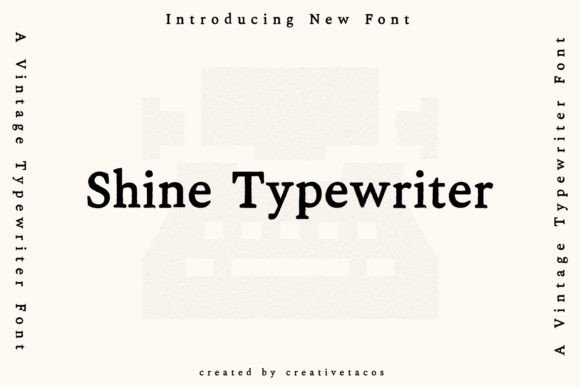
Introducing Shine Typewriter Font - the ultimate choice for those seeking a unique, funky, and thematic font to elevate their design projects. Crafted with meticulous care by the talented team at Creative Tacos, this serif font is a must-have addition to your fonts' library.
Embrace the retro vibes and transport your audience to a bygone era with Shine Typewriter Font. Its vintage appeal and captivating aesthetics will captivate any viewer, making your designs stand out from the crowd. Whether you're working on a poster, logo, or even a website, this font will infuse a touch of nostalgia that resonates with your target audience.
One of the standout features of Shine Typewriter Font is its versatility. Regardless of the subject matter, this font effortlessly adapts and complements your design, adding that extra oomph to your visuals. Its timeless charm allows you to experiment with different styles and themes, giving you the freedom to explore your creative boundaries.
But what truly sets Shine Typewriter Font apart is its ability to evoke emotions. Its quirky and handcrafted appearance ignites a sense of joy and playfulness, drawing your audience in and leaving a lasting impression. Every character tells a story, embracing imperfections and celebrating individuality. Unleash the power of authenticity and connect with your viewers on a deeper level.
With Shine Typewriter Font, you're not just downloading a font; you're unlocking a world of possibilities. Its extensive character set ensures that you have all the tools necessary to express your ideas effectively. From lowercase to uppercase, numerals, and punctuation, this font has got you covered.
But don't just take our word for it. Join the countless designers who have already fallen in love with Shine Typewriter Font and witness the transformation it brings to your projects. Experience the thrill of creating something extraordinary, where every stroke of the keyboard becomes a work of art.
In conclusion, Shine Typewriter Font is not just the best font for Latin script, but a gateway to unleashing your creativity. Its funky, thematic, and retro style will transport your designs to new heights. So why settle for ordinary when you can embrace the extraordinary? Upgrade your fonts' library with Shine Typewriter Font today and embark on a journey of captivating design possibilities.